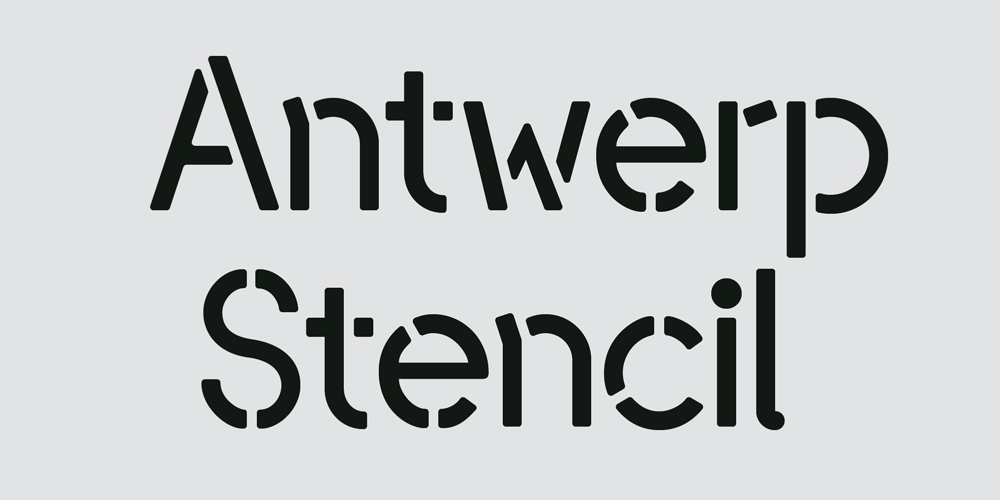
Antwerp Stencil
Antwerp Stencil font
Antwerp Stencil Font Family was designed by Chris Lee and published by Strike & Riot. Antwerp Stencil contains 1 styles and family package options. Antwerp Stencil Regular is a bold upbeat display face. It was derived from a few characters of stenciled lettering seen in Antwerp, Belgium. The bridges are located and oriented in ways, across the letterforms, that create rhythmic variety and mitigate challenges to legibility common in other stencil typefaces. Rounded corners give the typeface a friendlier feel, while retaining the a sense of assertiveness.This version includes special characters such as a triple exclamation mark, a copy left symbol, as well as gender non-binary ligatures for French.